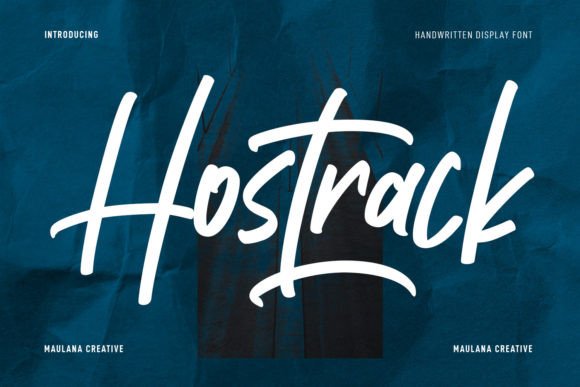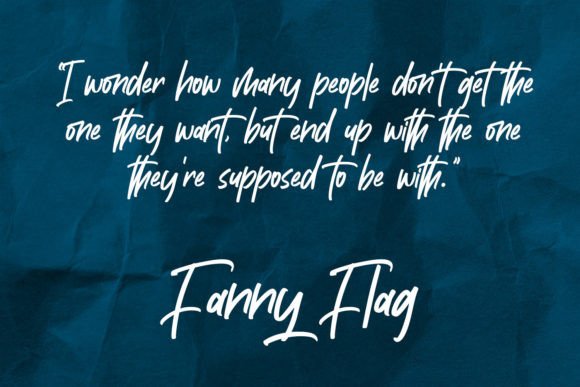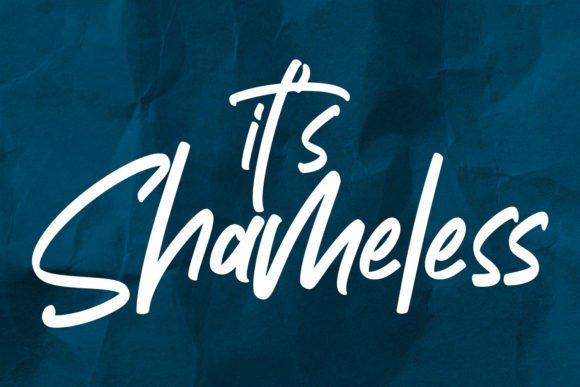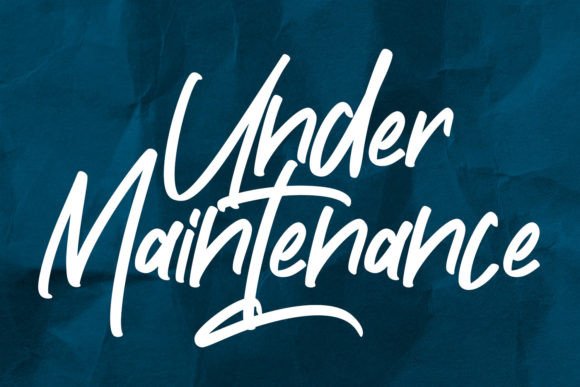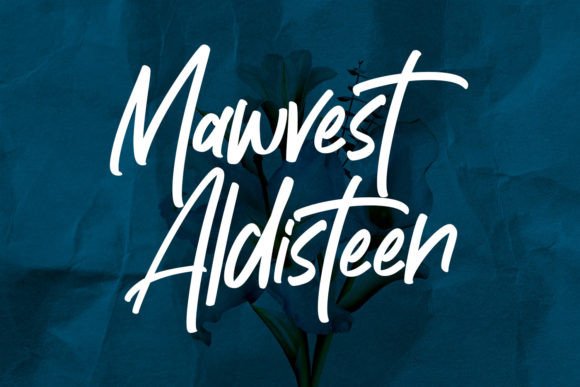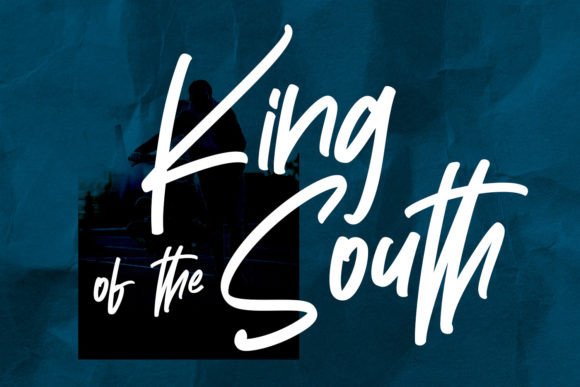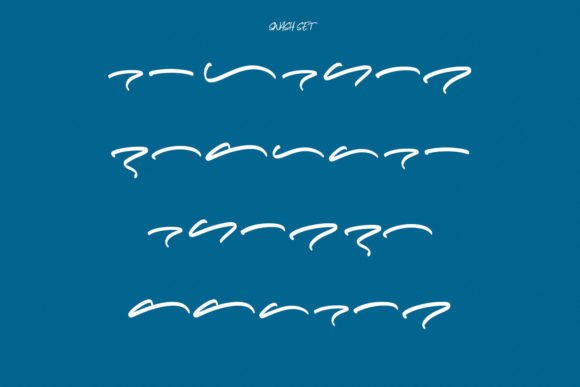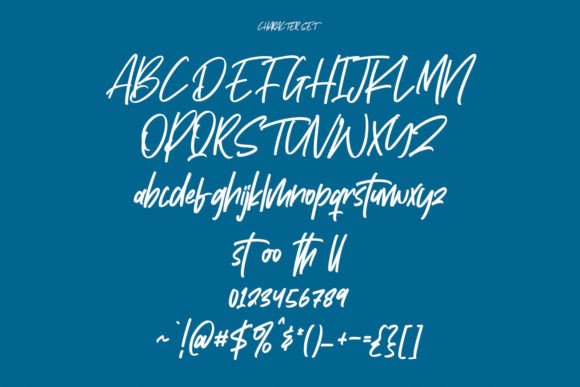
Hostrack Font
Hostrack Font Download – Modern Casual Handwritten Script
The Hostrack Font download is a modern and casual handwritten typeface designed to bring charm, warmth, and creativity to your projects. With its approachable style and versatile design, this font is perfect for both personal and professional use. Whether you’re crafting greeting cards, digital designs, or presentations, Hostrack ensures your work feels fresh and engaging.
A Modern and Casual Handwritten Style
The Hostrack Font download features clean strokes and smooth curves that capture the relaxed beauty of casual handwriting. Its balanced letterforms give your text a natural and approachable look, ideal for a wide variety of creative applications.
Perfect for Crafts and DIY Projects
The Hostrack Font download is great for scrapbooks, planners, stickers, and handmade cards. Its casual handwritten style adds authenticity and playfulness, making your DIY projects more personal and memorable.
Great for Greeting Cards and Invitations
From festive invitations to heartfelt greeting cards, the Hostrack Font download adds warmth and style. Its modern script design ensures that your stationery feels unique, stylish, and full of personality.
Ideal for Digital Designs and Presentations
The Hostrack Font download also adapts beautifully to digital formats, including websites, presentations, and social media graphics. Its approachable flow makes your message clear while still carrying a creative touch.
Readability with Casual Charm
Unlike some decorative fonts, the Hostrack Font download keeps your text legible while still adding handwritten flair. Its smooth forms make it effective for both bold headlines and medium-sized text.
Why Choose Hostrack Font?
Among handwritten typefaces, the HostrackFont download stands out for its modern casual style and versatile usability. It is friendly enough for crafts yet polished enough for branding and presentations.
Add Style and Warmth to Your Projects
Typography sets the tone of your designs, and the HostrackFont download helps you add creativity, charm, and approachability. Whether for crafts, greeting cards, or digital projects, this font ensures your work feels stylish and full of life.